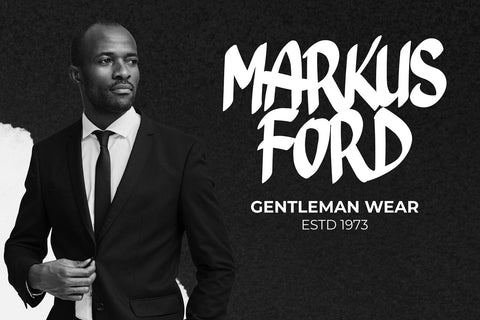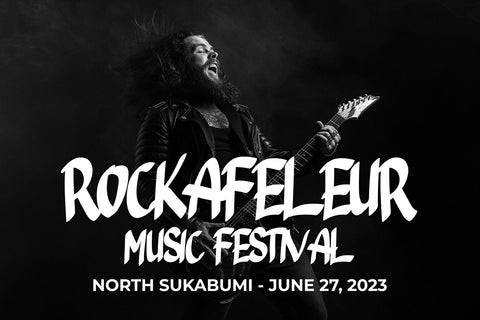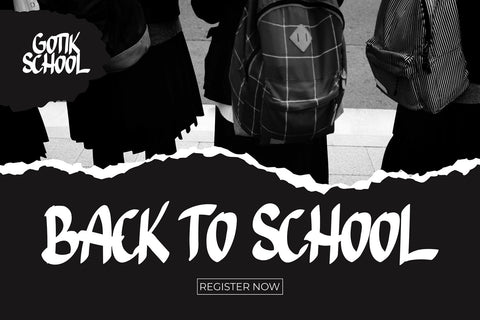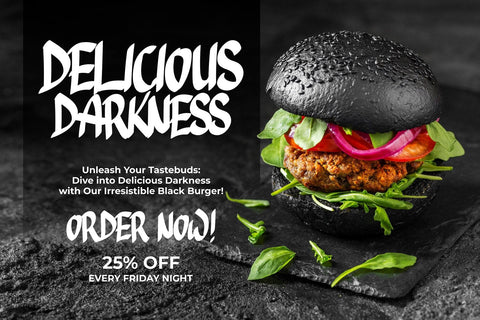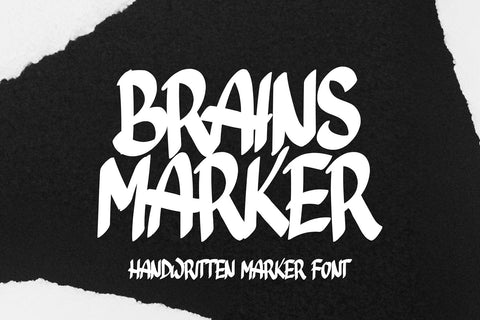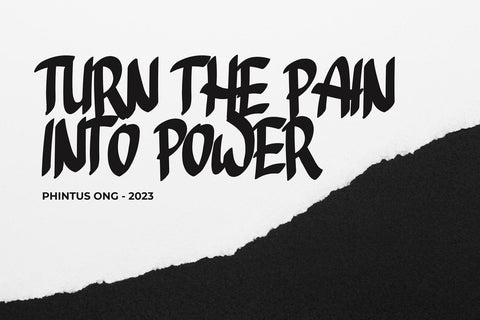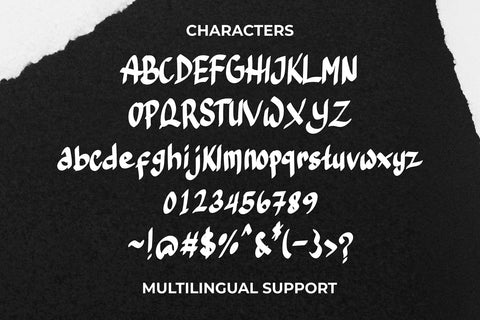
Brains Marker - Handwritten Marker Font
Brains Marker - Handwritten Marker Font is not just a typeface; it is an embodiment of raw creativity, untamed expression, and the timeless charm of handwritten artistry. With each stroke and curve, it captures the essence of free-spirited imagination, infusing any design with a sense of authenticity. Like an artist's brush dancing on canvas, Brains Marker breathes life into words, delivering a visual symphony of individuality and human touch. Its deliberate imperfections and organic flow serve as a testament to the beauty found in the imperfect, the unrefined, and the spontaneous. Whether it's used in graphic design or branding. Brains Marker breaks free from the rigid conventions of standardized typography, allowing ideas to flourish and messages to resonate with genuine emotion. It embodies the raw power of human expression, leaving an indelible mark on the creative landscape, reminding us that true beauty lies in the imperfect and the uniquely handcrafted.